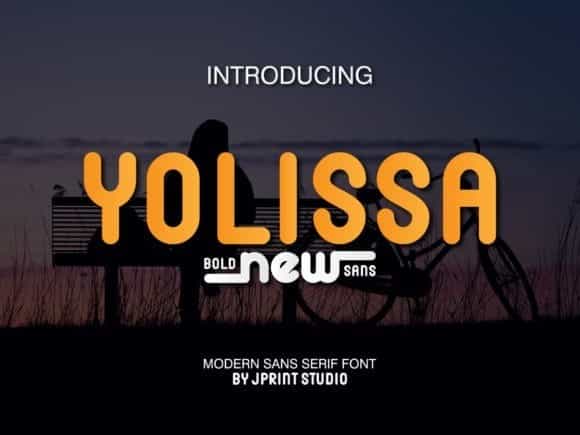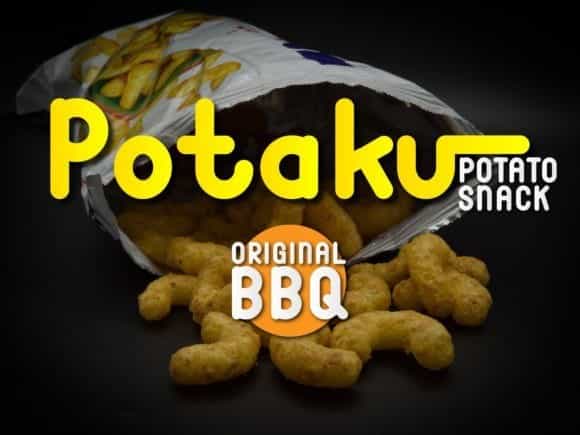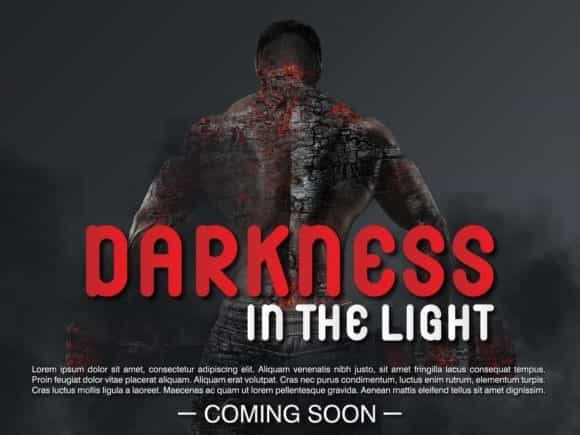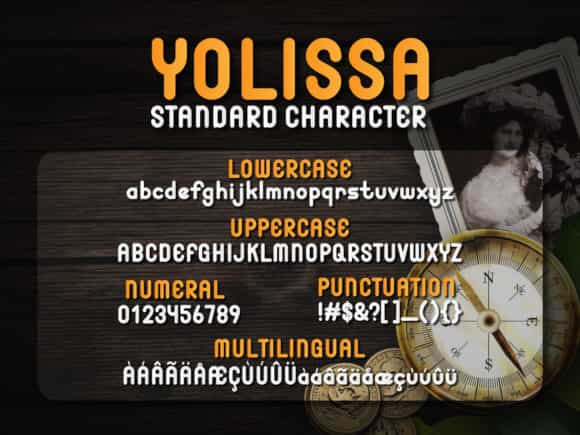
Yolissa is a hand-lettered sans-serif typeface that has no match and complements the projects in its unique way. The typeface keeps the structure, but at the same time it is able to show a friendliness and lightheartedness.